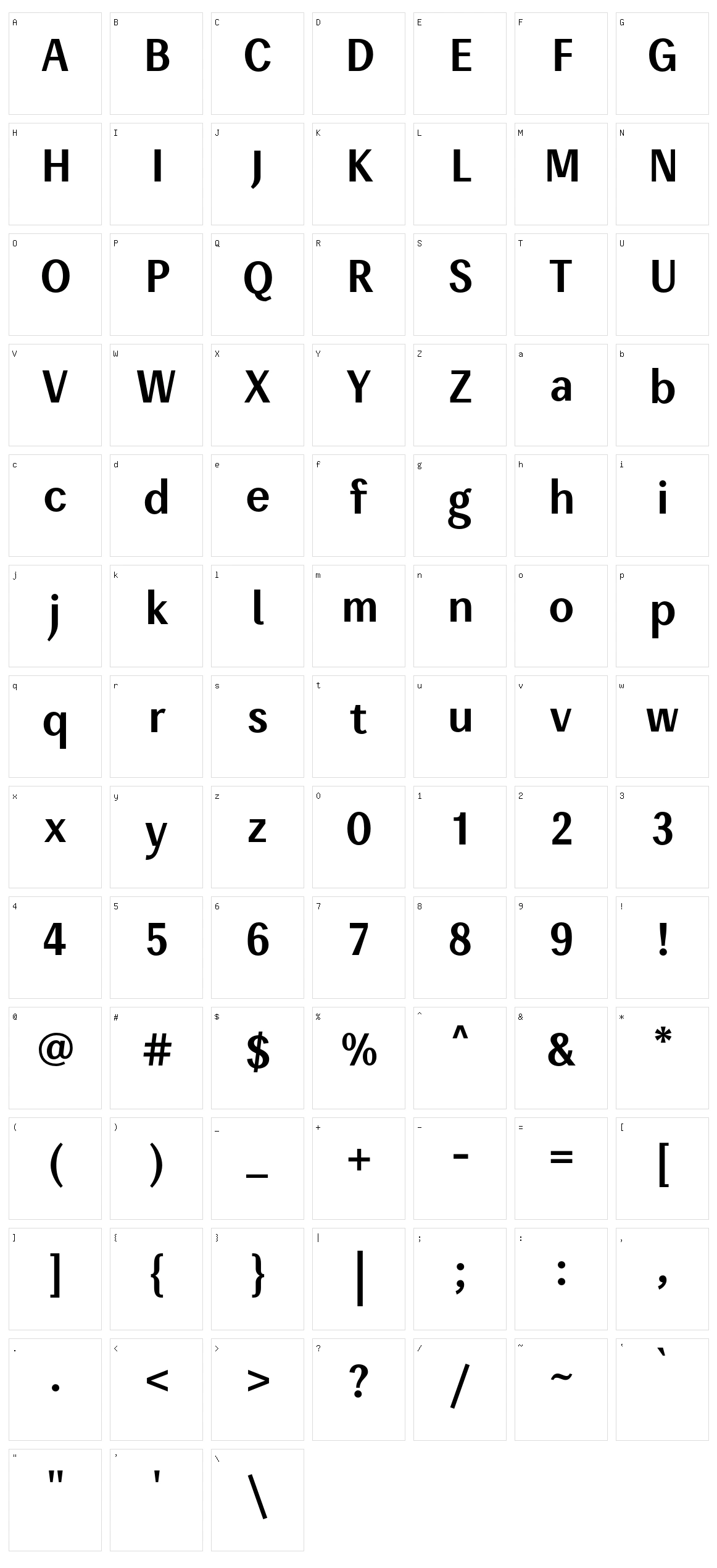
The free font Enceladus is carefully designed by Igor Kosinsky, showcasing a thoughtful balance of creativity and usability and falls under the Sans serif font style. When you download the ZIP file, it contains only 386.59 KB of font files, making it lightweight and quick to download. Please review the license details below to understand permitted usage and distribution rights. If license information is not available, we recommend using this font for personal projects only or contacting the author directly for commercial usage permissions.
Enceladus - it is a semi-condensed humanistic grotesque with visible contrast. Supports extended Latin and Cyrillic. He has three styles: Regular, DemiBold, Bold.